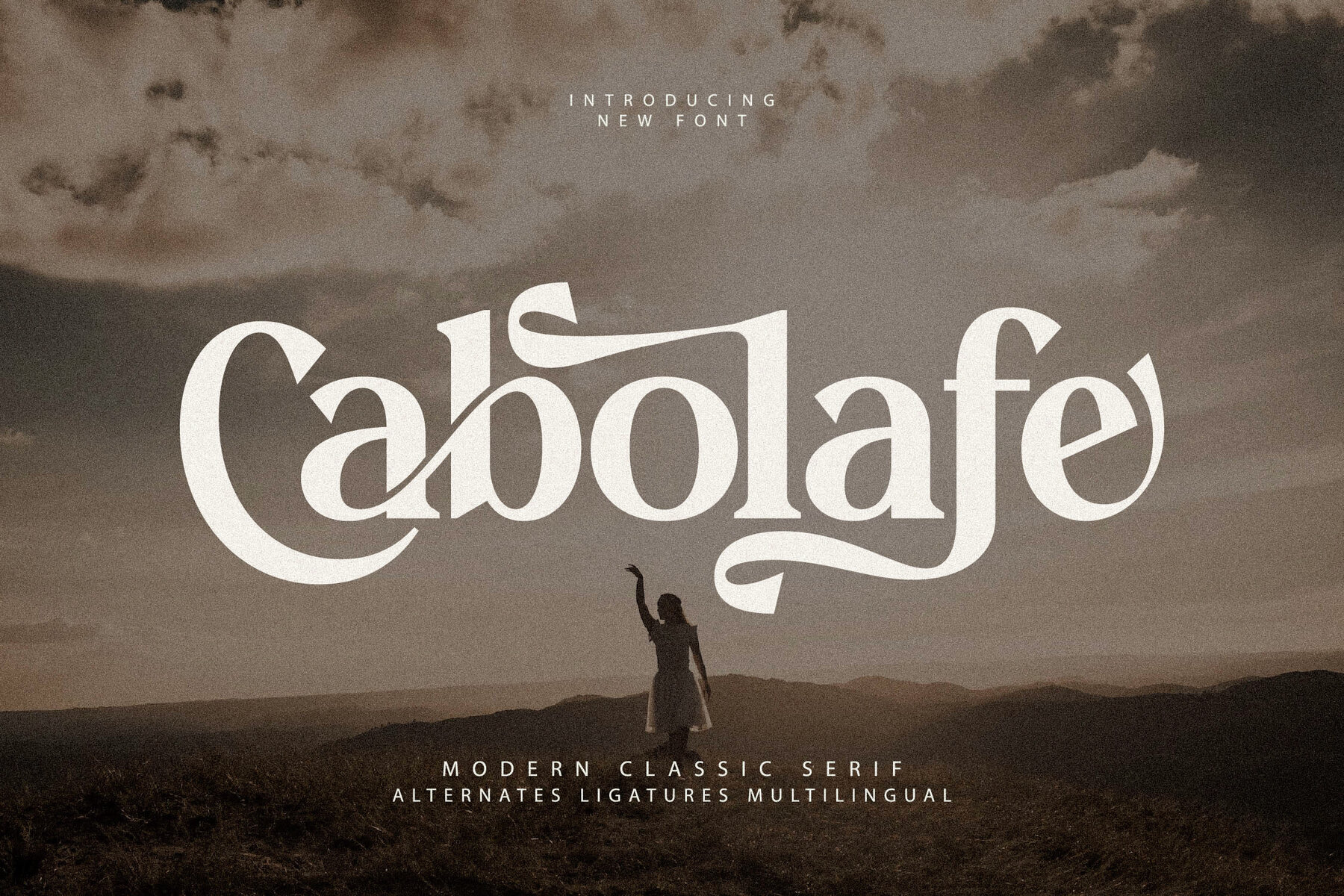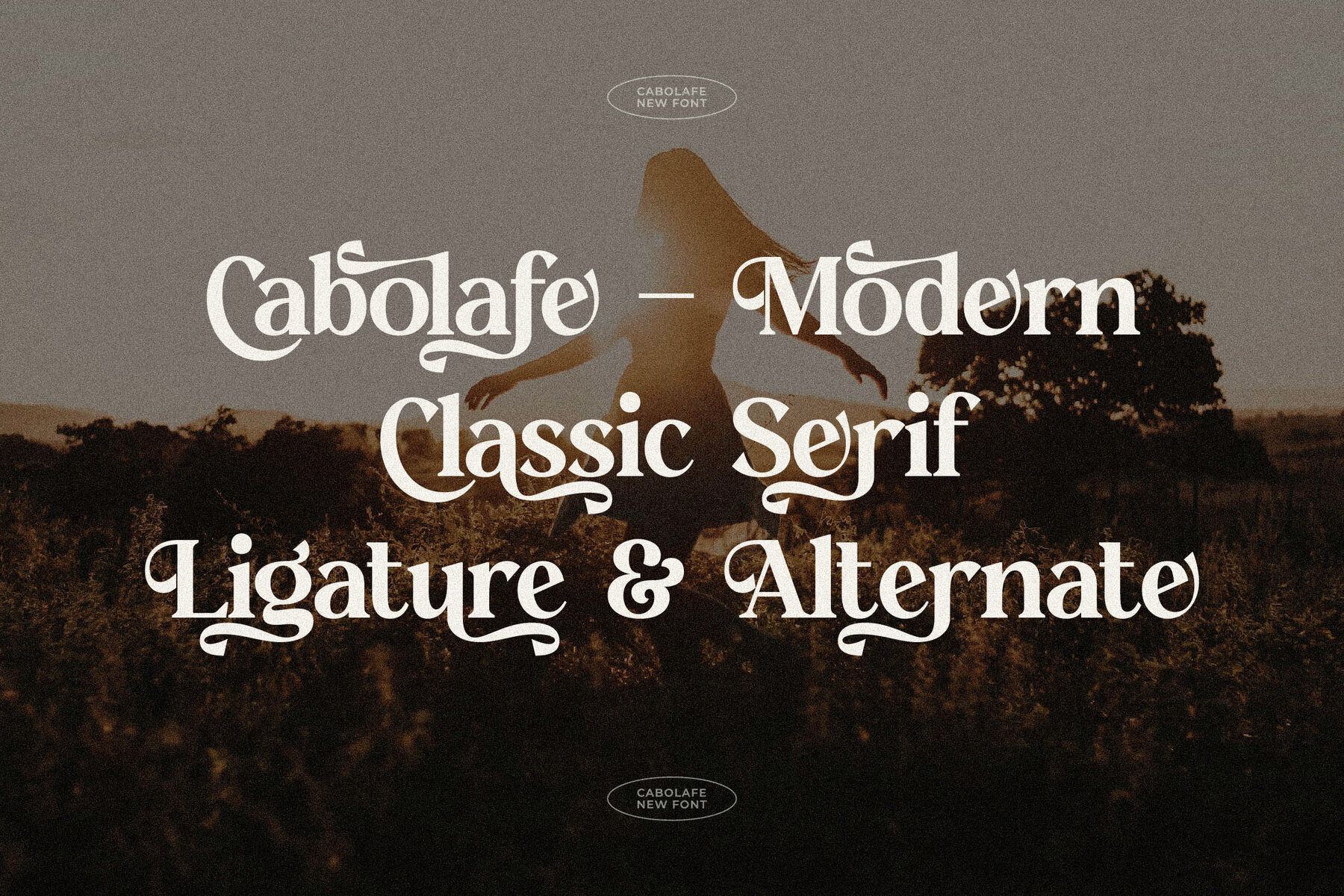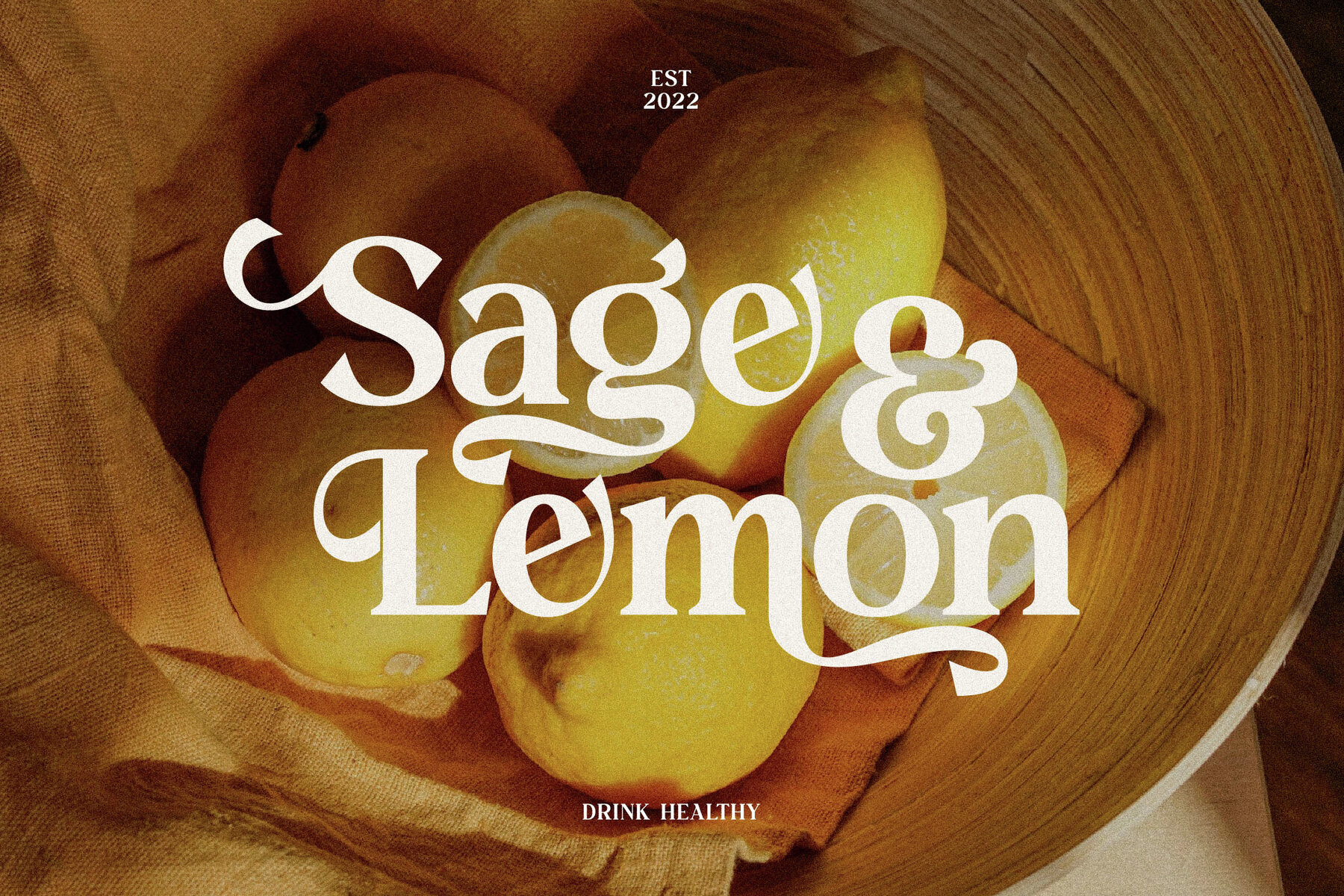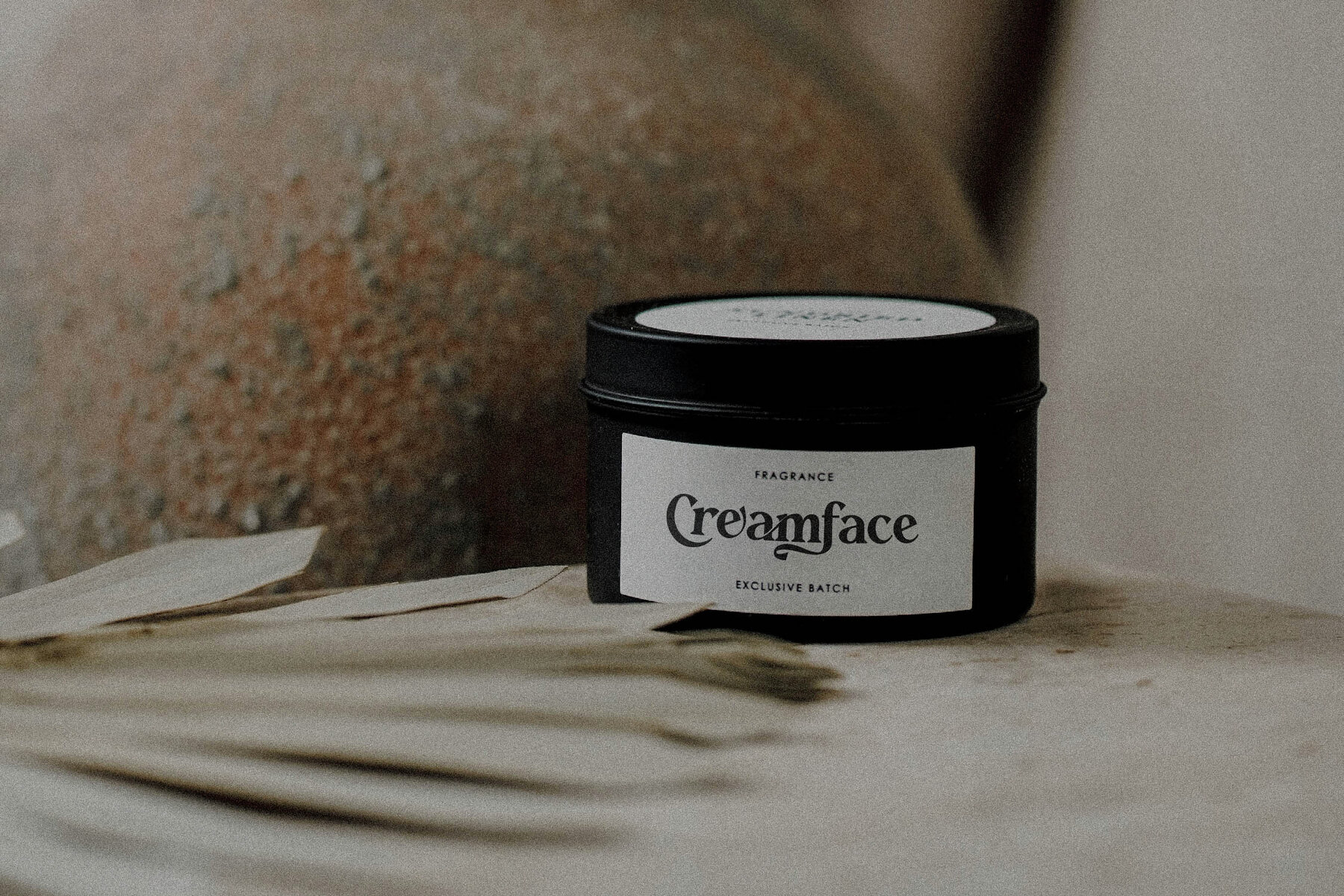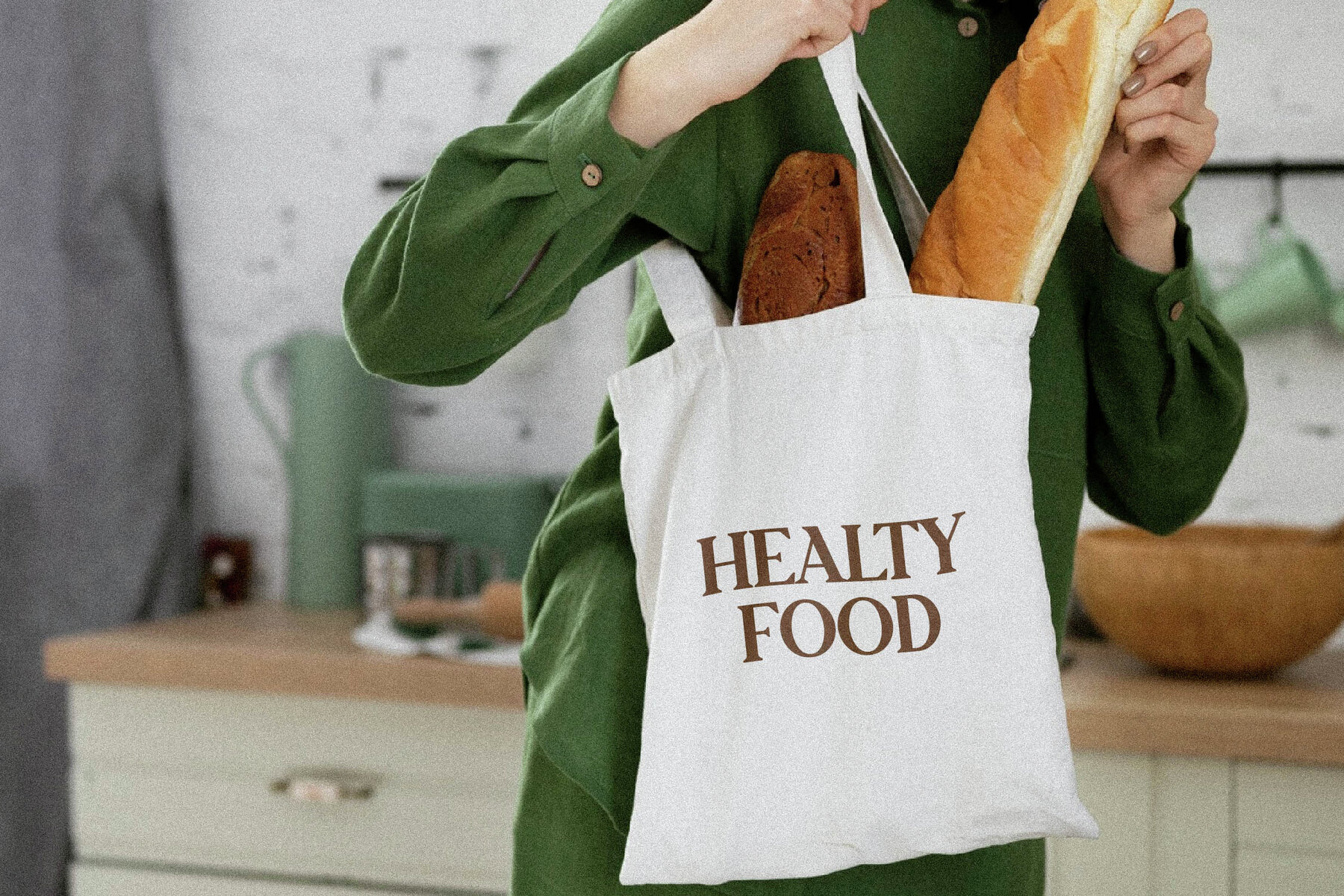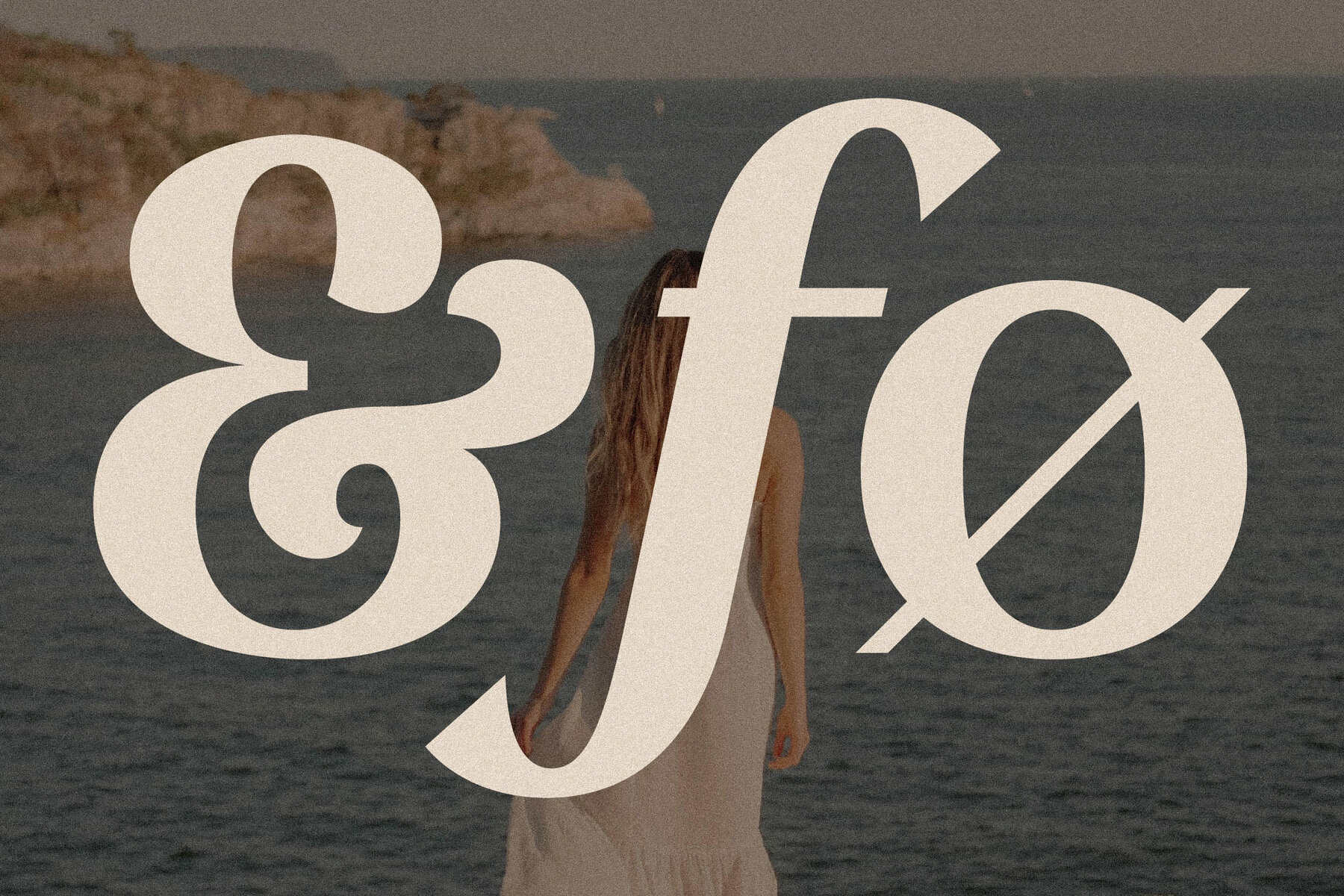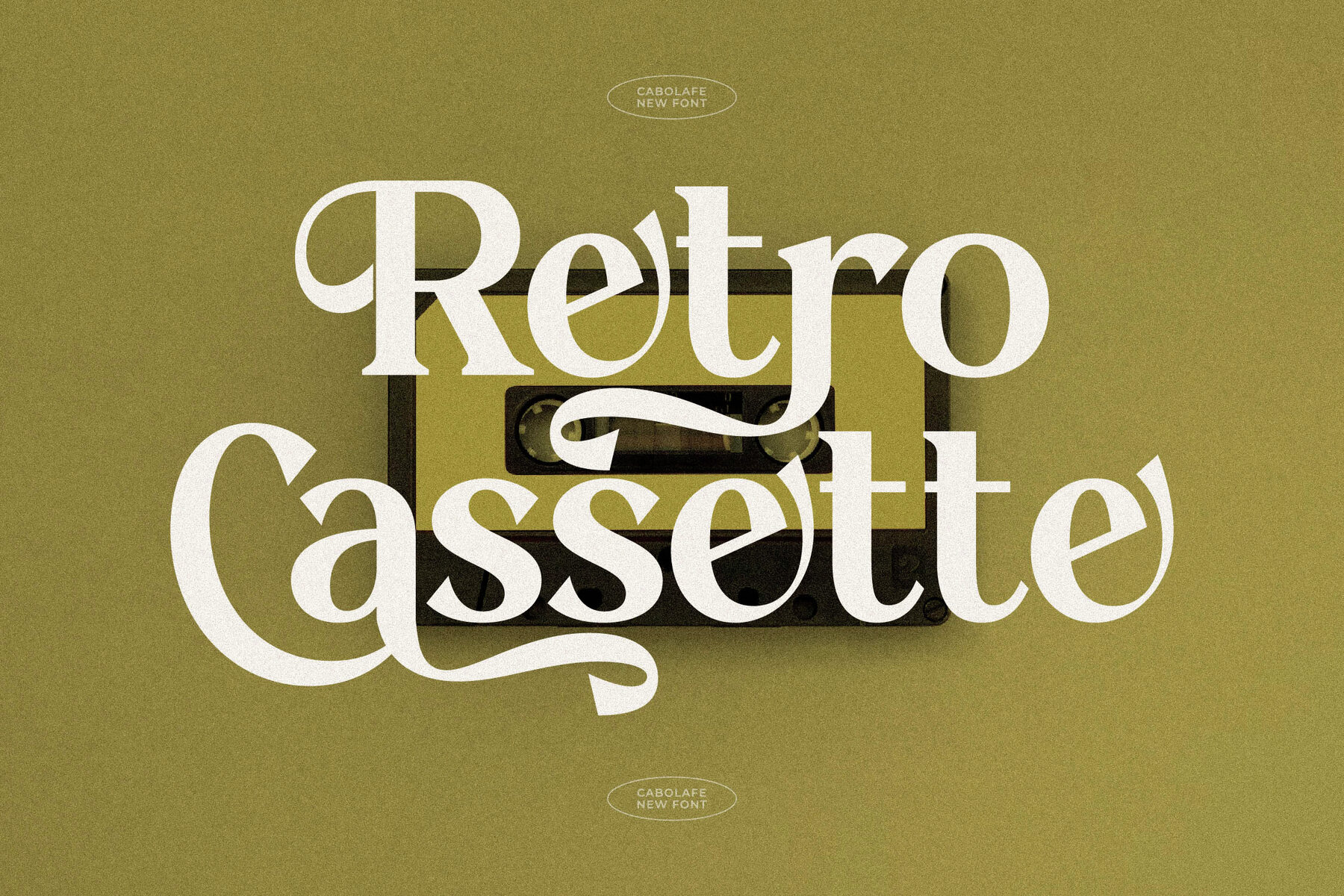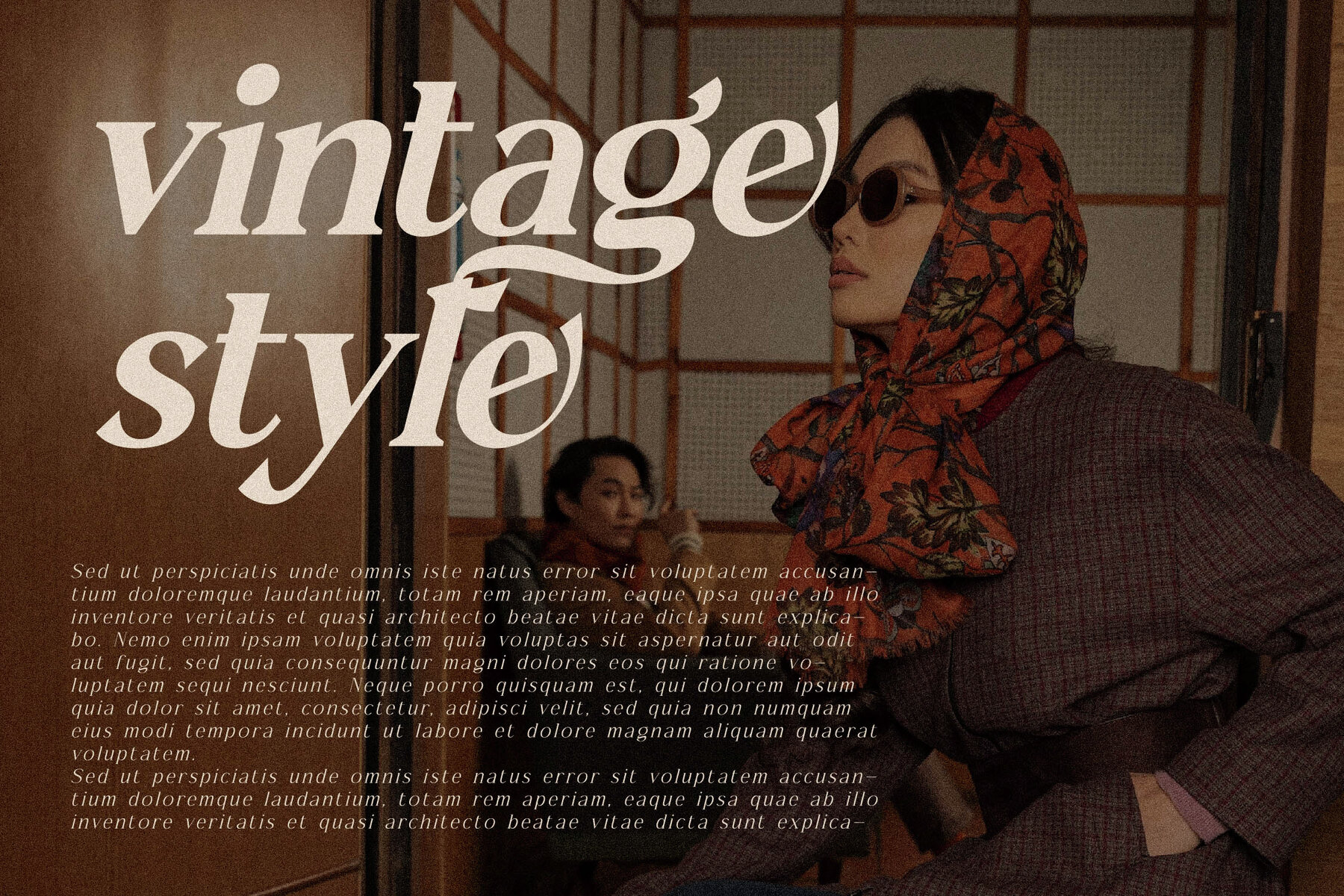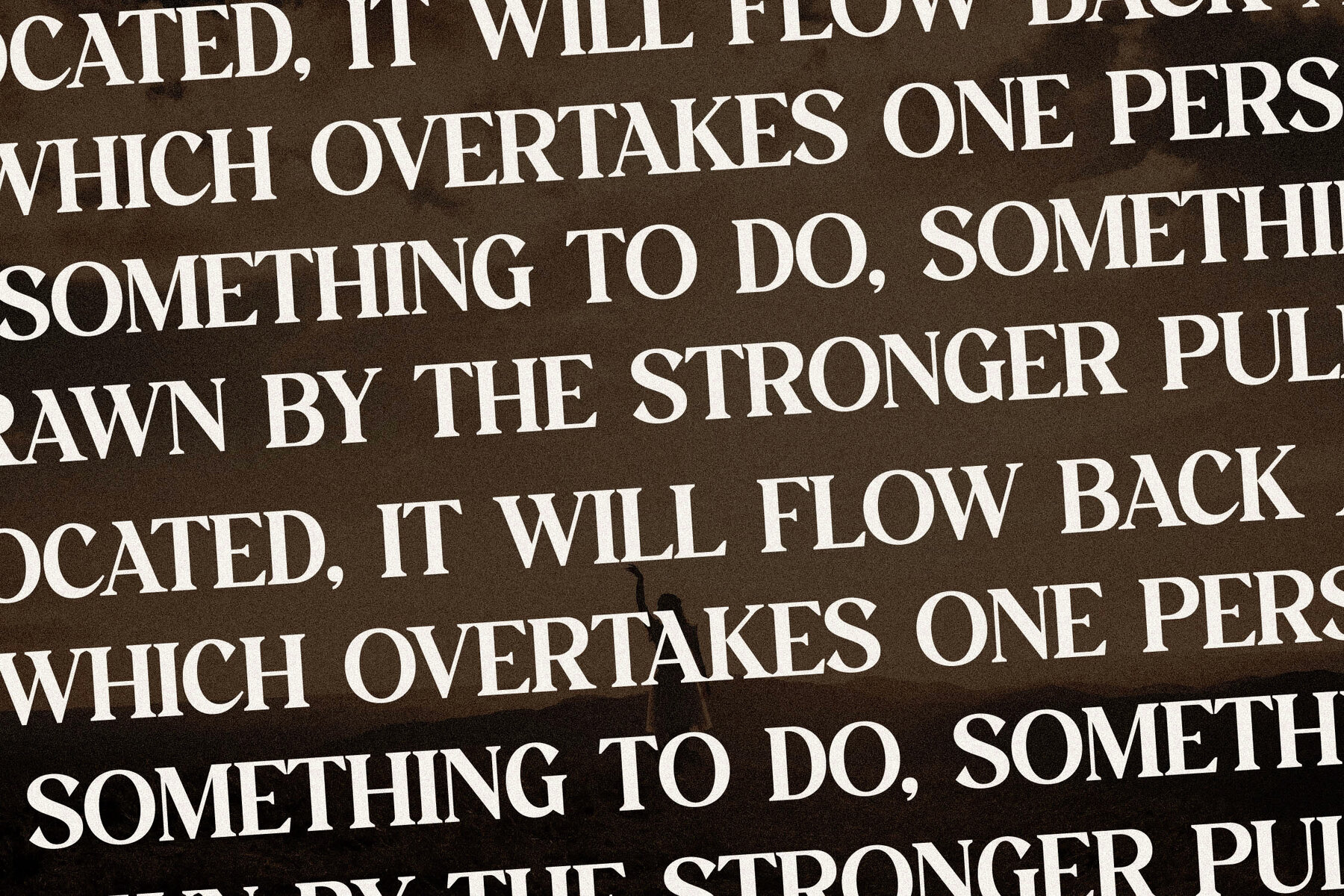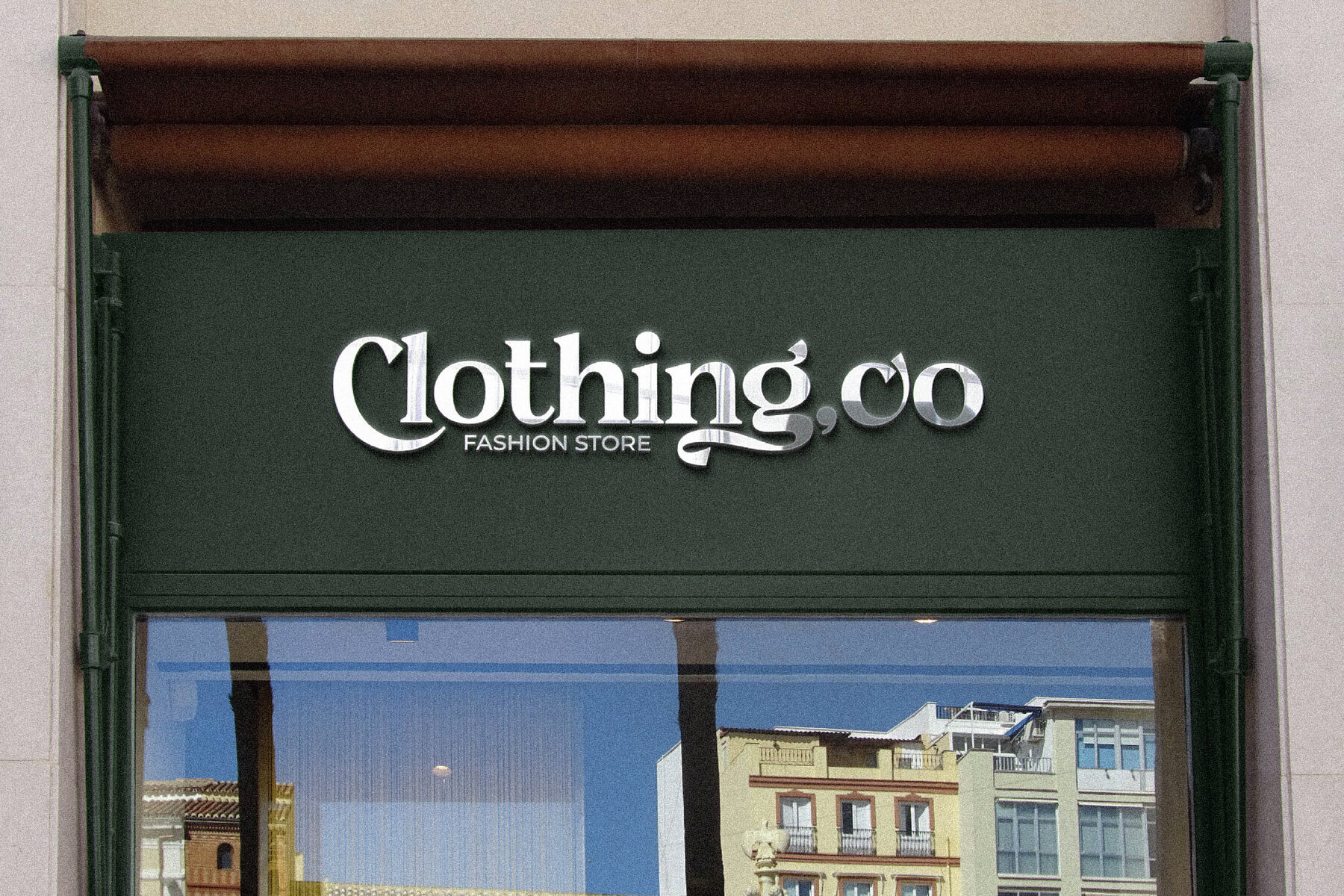
Cabolafe Font
Introducing Cabolafe, a serif typeface that perfectly blends modern and classic elements to create a unique look from Storytype Studio. Ideal for crafting elegant and luxurious logos, this typeface brings sophistication to book or movie title designs, fashion branding, magazines, clothing lines, and more. With Cabolafe, your projects will boast a fashionable and timeless appeal.Cabolafe Typeface